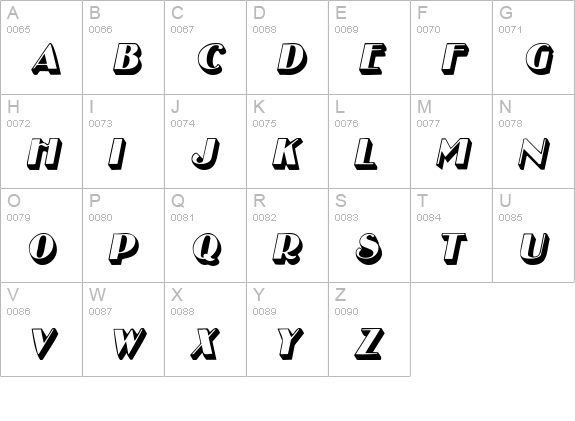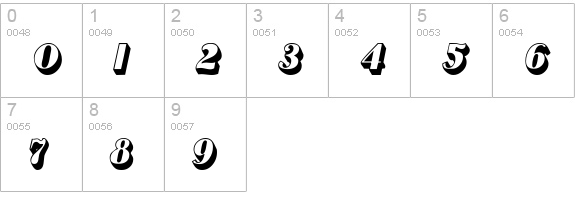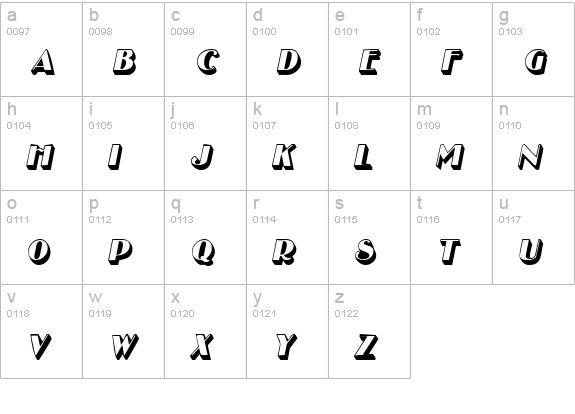
EsplanadeDisplay Italic Font Details
EsplanadeDisplay Italic is a distinctive, italic variant in the EsplanadeDisplay typeface family \xE2\x80\x94 well suited to design and typography projects.
EsplanadeDisplay Italic font is a stylish and elegant typeface that exudes sophistication and flair. Its sleek and modern design makes it perfect for a wide range of design projects, from branding to editorial design. The italic style adds a touch of dynamism and elegance to any text, making it stand out and grab the viewer's attention. The best part is, EsplanadeDisplay Italic font is available for free download at FontsMarket.com. This means you can easily access this beautiful font and use it in your projects without any cost. Whether you're a seasoned designer or just starting out, EsplanadeDisplay Italic font is a fantastic addition to your font collection. Download it today and elevate your designs with this stunning typeface.